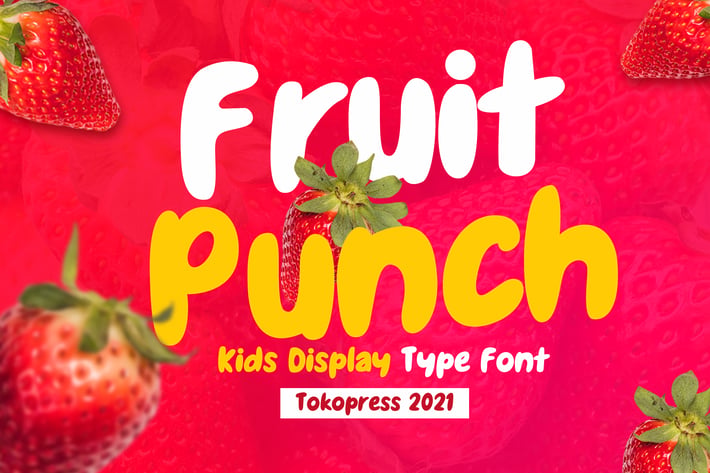
Fruit Punch - Kids Font
Fruit Punch is a bold kids display font with a high-impact, long-tail keyword focus—playful branding for children’s packaging—that delivers soft curves, bubbly forms, and a joyful vibe. Designed to pop off the shelf, it features a rounded, cartoon-inspired structure and a bouncy baseline that feels energetic and expressive. Its vibrant tone suits child-focused markets like birthday cards, toy packaging, or food branding.
Whether you're designing eye-catching snack labels, colorful event posters, or fun YouTube thumbnails, Fruit Punch makes your message loud, lovable, and unmistakably playful. It immediately connects with family audiences and young readers, bringing a joyful, kid-safe aesthetic that designers crave for branding, early education materials, kids apps, or editorial projects targeting children.
Key Features
Perfect For :
- Kids food packaging & branding
- Birthday invitations, posters, party themes
- Children’s books, toys, and educational tools
- Social media graphics and YouTube thumbnails
Design Strengths :
- Chunky letterforms for instant readability
- Rounded strokes for a soft, friendly feel
- High x-height and bouncy rhythm for youthful energy
- Engages kids and parents alike with visual joy